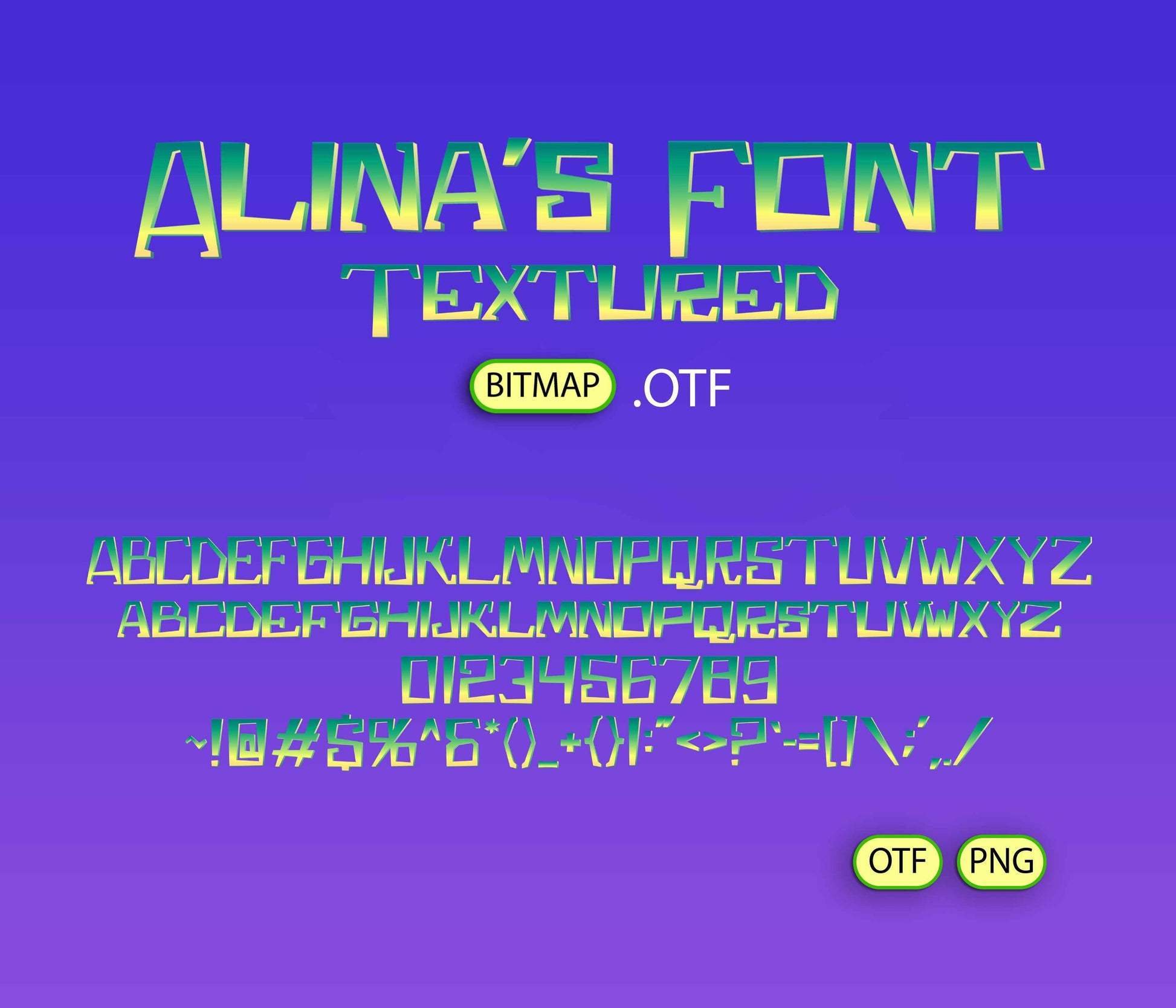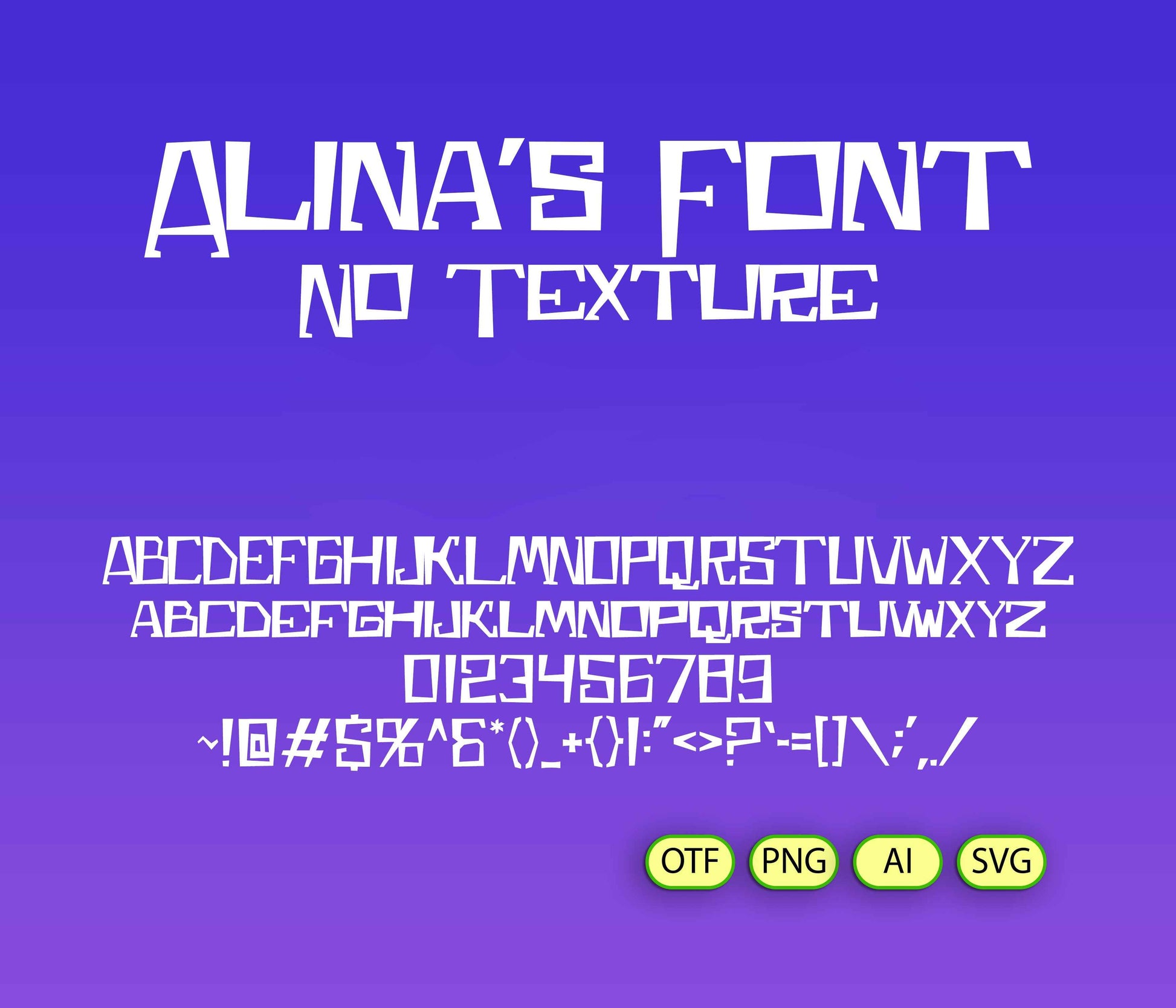
Charming Lizard Font Textured
Charming Lizard Font: Inspired by a Beloved Animated Character
Dive into the whimsical and heartwarming world of Charming Lizard with our specially designed font, capturing the essence of a beloved animated film. Perfect for fans, parents, teachers, event planners, and designers, this font brings the quirky and affectionate nature of a wise and adventurous lizard to your projects. Whether you're creating event invitations, themed merchandise, or digital content, our Charming Lizard font fills your projects with joy and adventure.
What Is Charming Lizard Font?
The Charming Lizard font is meticulously crafted to echo the unique character of the film's titular lizard. The design mirrors his journey from a confined terrarium to the wilds of nature, encompassing his wisdom, age, and playful spirit. It includes a comprehensive character set, extending beyond alphabets to include numbers and special symbols, ensuring a faithful recreation of the film's distinctive typographic style.
What You Can Do With Charming Lizard Font
Feature Highlights and Bonuses
The Charming Lizard Font package is a treasure chest for both fans and creators, encompassing textured, colored, and non-textured variants. An added highlight is the standard version, optimized for use with cutting machines like Cricut, making it essential for DIY aficionados and crafters.